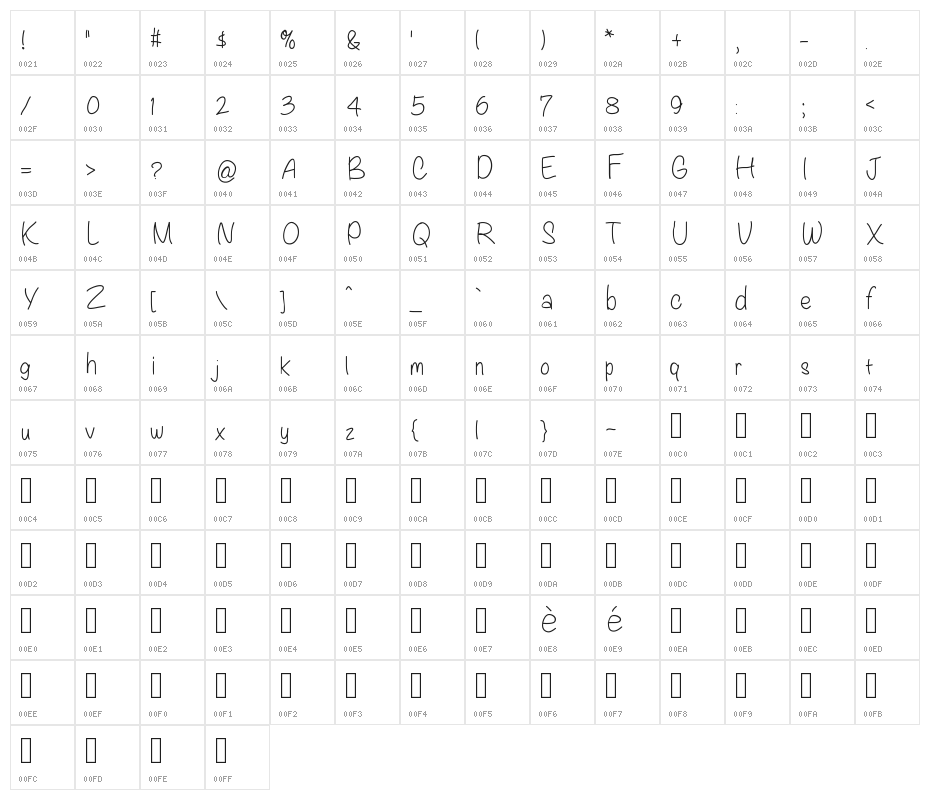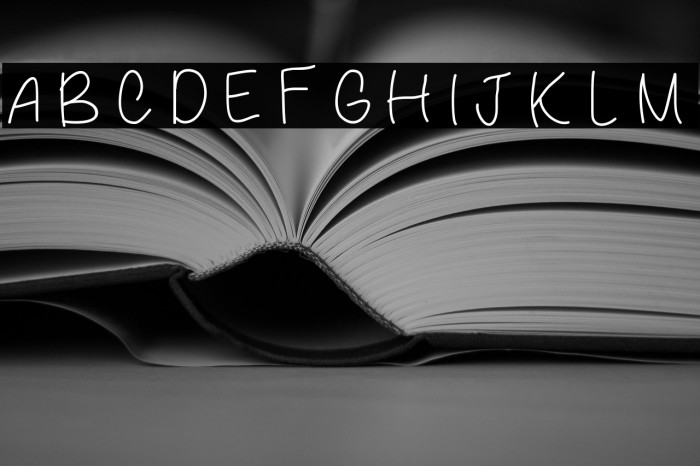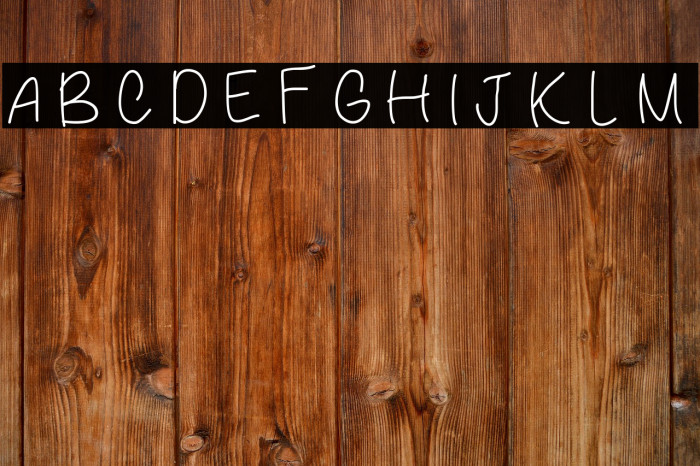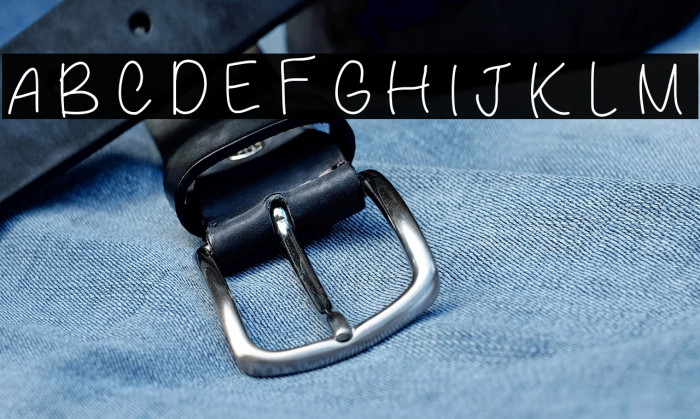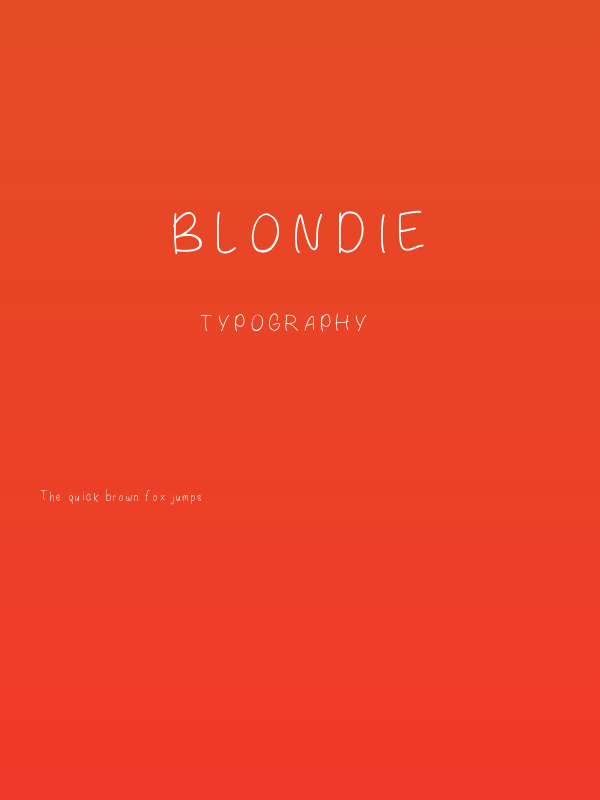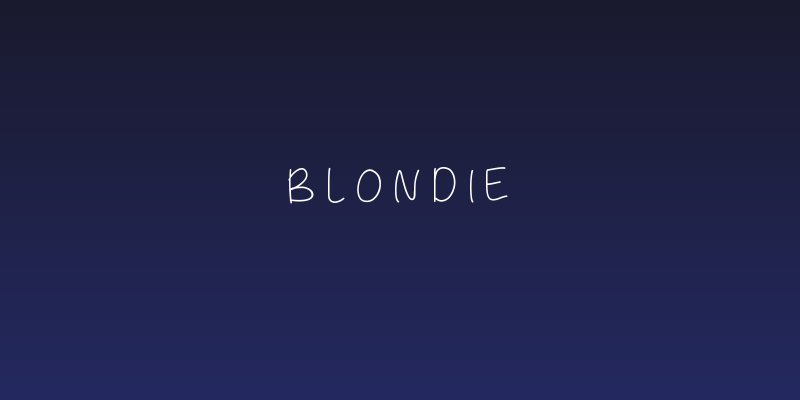
Blondie Font
Blondie Description
This font exhibits a playful and casual handwritten style, characterized by its slightly irregular and organic letterforms. The uppercase and lowercase letters maintain a consistent flow, with rounded edges and a friendly appearance. The numerals and special characters complement the alphabet with a similar informal aesthetic. The strokes are uniform in thickness, giving the font a cohesive look. It is well-suited for projects that require a personal touch, such as greeting cards, invitations, or children's book illustrations. The font's simplicity and charm make it versatile for various creative applications.
| Proposed Projects | Ideal for greeting cards, invitations, children's books, and casual branding. |